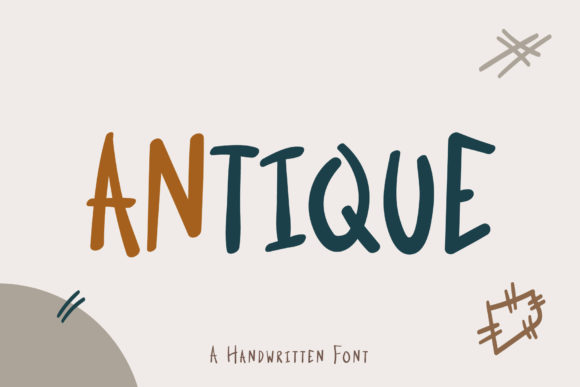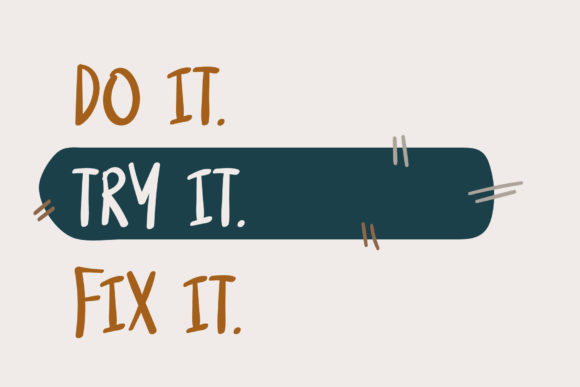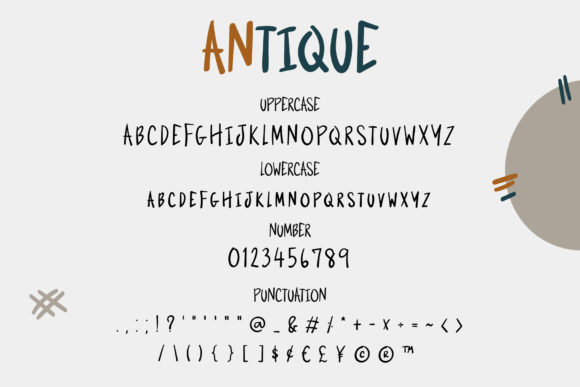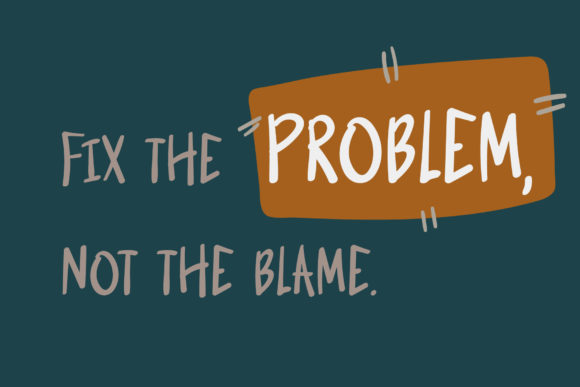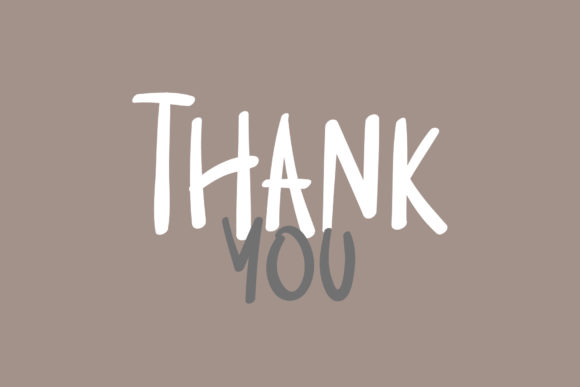
Antique Font
Antique is a striking and bold handwritten font, meticulously crafted to become a beloved favorite. Its casual charm adds a wonderful down-to-earth appeal, making it both highly readable and exceptionally versatile. This font is designed to look outstanding in any context, whether used on busy backgrounds or as a captivating standalone headline!
The font’s boldness gives it a commanding presence, making it a perfect choice for headlines and attention-grabbing elements. Its strong strokes add emphasis and draw the eye, making your message impossible to ignore.
Antique’s handcrafted essence adds a touch of authenticity to your designs, creating a genuine and personal connection with your audience. Its casual charm brings a sense of approachability, making it relatable and easy to engage with.
Despite its bold appearance, Antique maintains excellent readability. Each character is thoughtfully designed, ensuring that your message is conveyed clearly and effectively, regardless of the size or context.
This font’s versatility knows no bounds. Whether you’re designing for print or digital media, Antique seamlessly adapts to any project, enhancing the overall aesthetic and impact.
Its ability to shine on busy backgrounds makes Antique a standout choice for designs that demand attention. The font’s boldness ensures that it remains prominent and legible, even amidst intricate visual elements.
As a standalone headline, Antique takes center stage with its captivating charm. It adds a touch of elegance and uniqueness, making your message truly memorable and leaving a lasting impression.
In summary, Antique is more than just a font; it’s a bold statement that demands attention. Its casual charm, handcrafted appeal, and outstanding readability make it an all-time favorite for designers. Embrace the versatility of Antique in any context, and witness how it transforms your designs into powerful expressions that captivate and resonate with your audience.